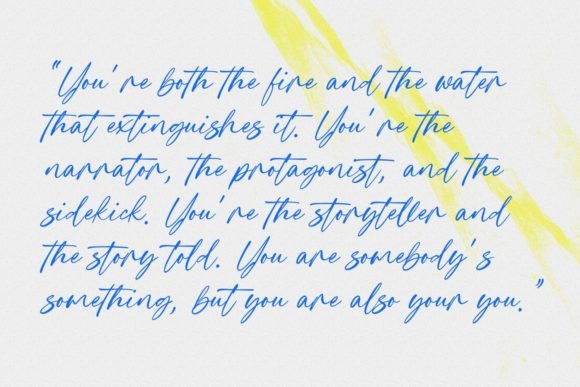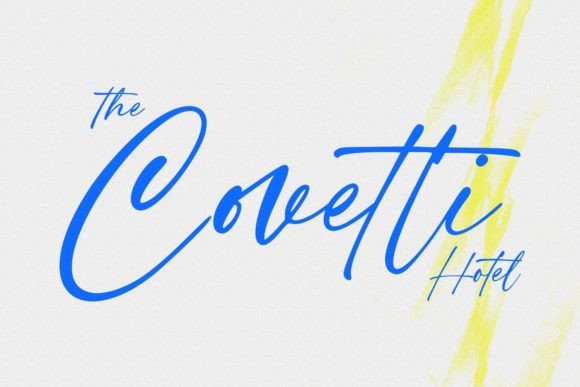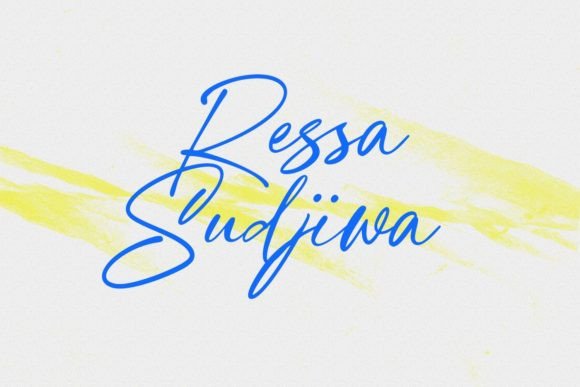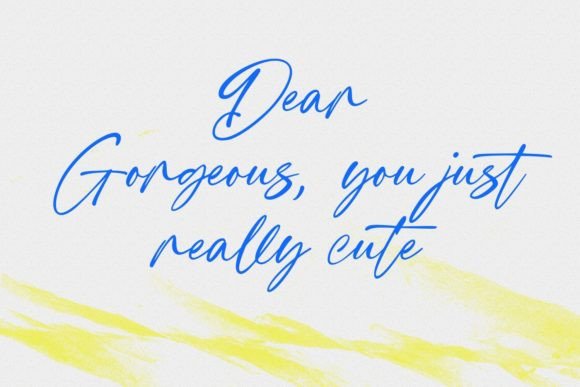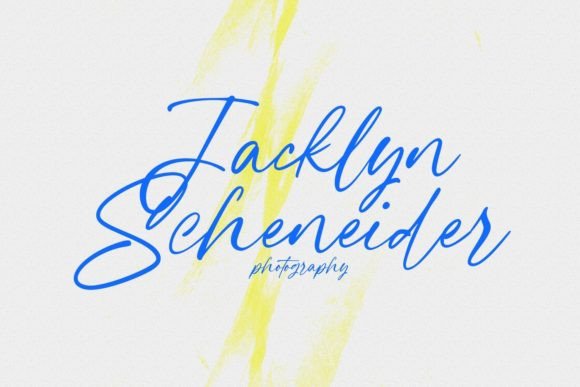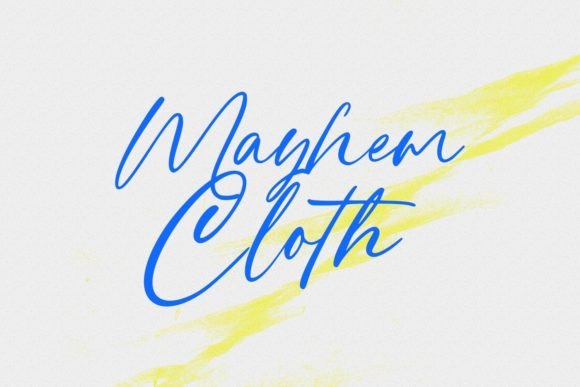
The Perfect Script for Your Next Creative Project
Have you ever stared at a blank page, waiting for inspiration to strike? Maybe you’re working on a logo design for a client, or perhaps you’re trying to craft the perfect movie title. Whatever your creative pursuit, we’ve got just the thing to get those ideas flowing: the Counter Ropwells Font.
This expressive signature script font is designed to add a touch of personality to your work. With its light ink-is contrast stroke, fun character, and bit of ligature, it’s perfect for adding a playful touch to your designs. And with alternates available, you can take your creative work to the next level. Whether you’re working on a logo, social media post, or book title, the Counter Ropwells Font is the perfect tool to help you make a lasting impression.
Counter Ropwells Font Key Features
- Font Family: Counter Ropwells is a unique, modern script font designed for digital use.
- Unique Characteristics: Features a distinctive, handwritten feel with subtle flourishes and connecting strokes, ideal for adding a touch of elegance and sophistication to designs.
- Font Pairing: Designed to pair well with sans-serif fonts, creating a striking contrast that elevates designs and adds visual interest.
Counter Ropwells Font Review
Overall, I think Counter Ropwells Font has some great qualities, but it also has some limitations that might make it not suitable for every project.
- ✨ Unique and interesting character set: Counter Ropwells Font has a distinct personality that can add a touch of whimsy to any design.
- ✨ Good for display use: This font looks great in larger sizes, making it perfect for headings, titles, and other display elements.
- ✨ Wide language support: Counter Ropwells Font supports a wide range of languages, making it a great choice for multilingual designs.
Limitsations:
- ⚠️ Limited legibility: At smaller sizes, Counter Ropwells Font can become quite hard to read, making it less suitable for body text or other small-scale applications.
- ⚠️ Limited versatility: While the font looks great in display use, it may not be the best choice for more formal or professional designs.
- ⚠️ Some compatibility issues: I experienced some compatibility problems with this font in certain design software, which may be a concern for some users.
Overall Impression:
Counter Ropwells Font is a fun and interesting font that can add a unique touch to your designs. However, it’s not without its limitations. If you’re looking for a font with great display capabilities and a unique character set, Counter Ropwells Font might be a great choice. But if you need a font for body text or more formal designs, you might want to consider other options.
Tips for Getting the Most Out of Counter Ropwells Font
Use Counter Ropwells Font for headings and titles to add a touch of elegance and sophistication to your design.
Experiment with different font sizes and styles to create visual interest and balance.
Combine Counter Ropwells Font with other fonts to create a unique and visually appealing design.